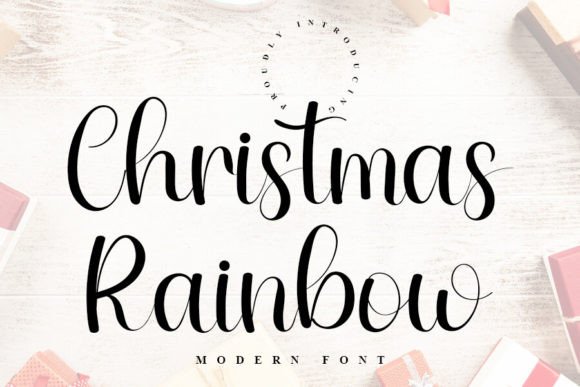
Looking for the perfect font to make your business flyers stand out? Look no further than Christmas Rainbow Font! Created by ABBAsalam, this sweet and friendly handwritten font is exactly what you need to captivate your audience and leave a lasting impression.
With its natural and unique style, Christmas Rainbow Font adds a touch of warmth and creativity to any design. Whether you're creating flyers, advertisements, or even social media posts, this font will instantly elevate your content and make it stand out from the crowd.
One of the greatest advantages of Christmas Rainbow Font is its versatility. It seamlessly blends with various design elements, allowing you to experiment and create eye-catching compositions that truly reflect your brand's personality. Let your imagination run wild and watch as this font effortlessly brings your visions to life.
Crafted with utmost care, Christmas Rainbow Font is meticulously designed to ensure clarity and legibility, even in smaller sizes. This means that you can confidently use it for both headlines and body text, without worrying about readability issues. Your message will be delivered with utmost precision and impact, leaving your audience craving more.
But why stop at business flyers? Christmas Rainbow Font is perfect for a wide range of projects. Whether you're designing invitations, greeting cards, logos, or even merchandise, this font will add a touch of elegance and charm. Its handwritten aesthetic conveys a sense of authenticity and personalization, making your designs truly special.
When you choose Christmas Rainbow Font, you're not just investing in a font – you're investing in your brand's image. With its emotional appeal and captivating style, this font will leave a lasting impression on your customers, making them more likely to engage with your content and ultimately, convert into loyal supporters.